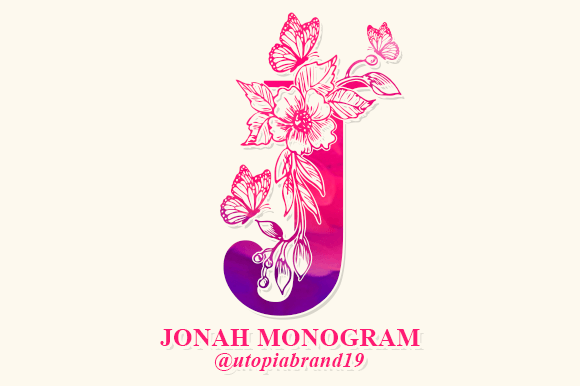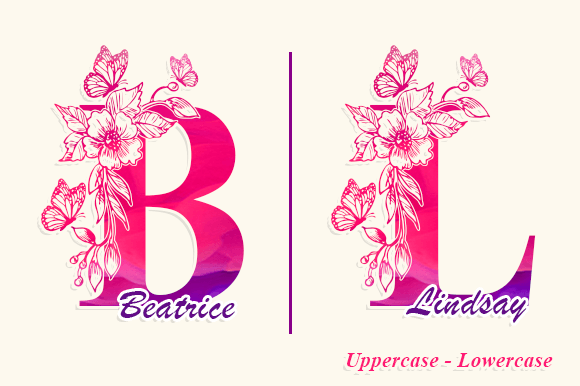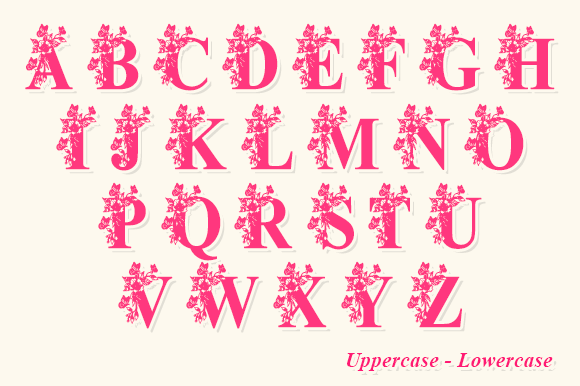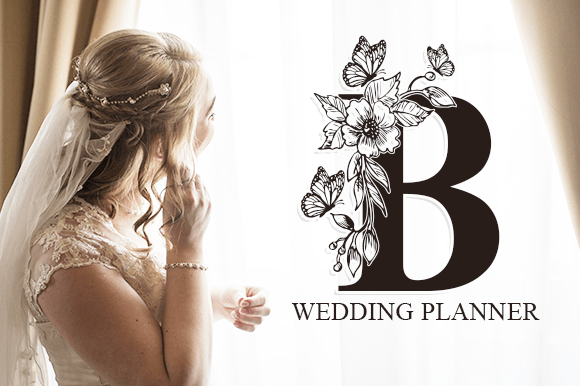
Jonah Monogram Font
About the Jonah Monogram Font
Elevate your designs with Jonah Monogram Font, a font that combines sophistication with readability. Jonah Monogram is an elegant decorative font, featuring lovely ornaments. Fall in love with its authentic feel and use it to create gorgeous wedding invitations, beautiful stationary art, eye-catching social media posts, and cute greeting cards.
Its elegant, decorative style makes Jonah Monogram ideal for projects requiring a touch of vintage charm. Use it for logos, short headlines, wedding invitations, and other applications where its ornate details can shine. However, its decorative nature makes it less suitable for body text or UI elements where readability is paramount. Avoid using it for large blocks of text.
Pairing Jonah Monogram effectively requires a contrasting typeface to balance its ornate qualities. A clean sans-serif like Montserrat or a minimalist serif such as Lato would provide a strong visual counterpoint, enhancing readability and preventing visual clutter. For a more playful approach, consider pairing it with a script font that complements its decorative flourishes.
Jonah Monogram projects a sophisticated, romantic personality. Brands focused on luxury goods, handcrafted items, or events that emphasize elegance and detail would find it particularly appropriate.
Jonah Monogram Font Usage Examples
Jonah Monogram Font Example